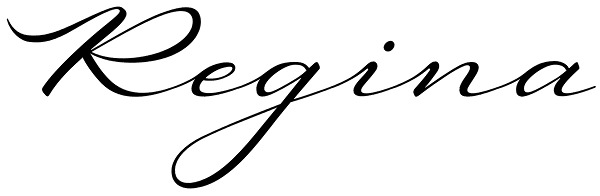
Regina
A broad, welcoming, and highly legible script, Regina’s languorous letterforms laze across the page. Suitable for use in display or text settings on letters, invitations, and menus, Regina reminds us of a time when people took the time and care to...